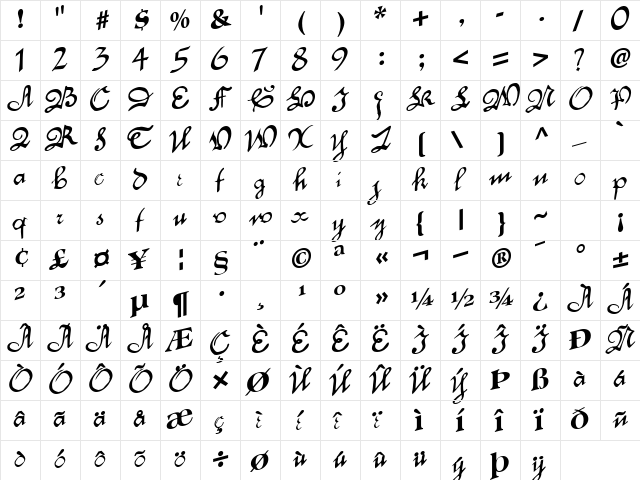
Cap Bold Font Preview
Cap Bold
Cap Bold Font Details
Design Context for Cap Typeface
Cap is a composed and adaptable typeface that performs quietly and consistently across a wide range of design contexts. The heavy weight commands attention and anchors typographic hierarchies.